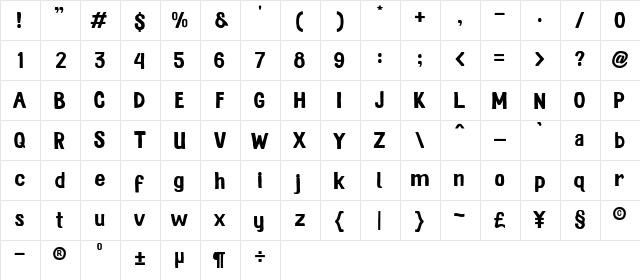
Vakansy Regular
| Foundry | Mufidah Offset (TypeFoundy) |
| Designer | Mohammad Azmil Bahar |
Design Context for Vakansy Typeface
Vakansy offers clean, dependable letterforms without strong stylistic allegiance, making it a practical choice for designers who need flexibility.